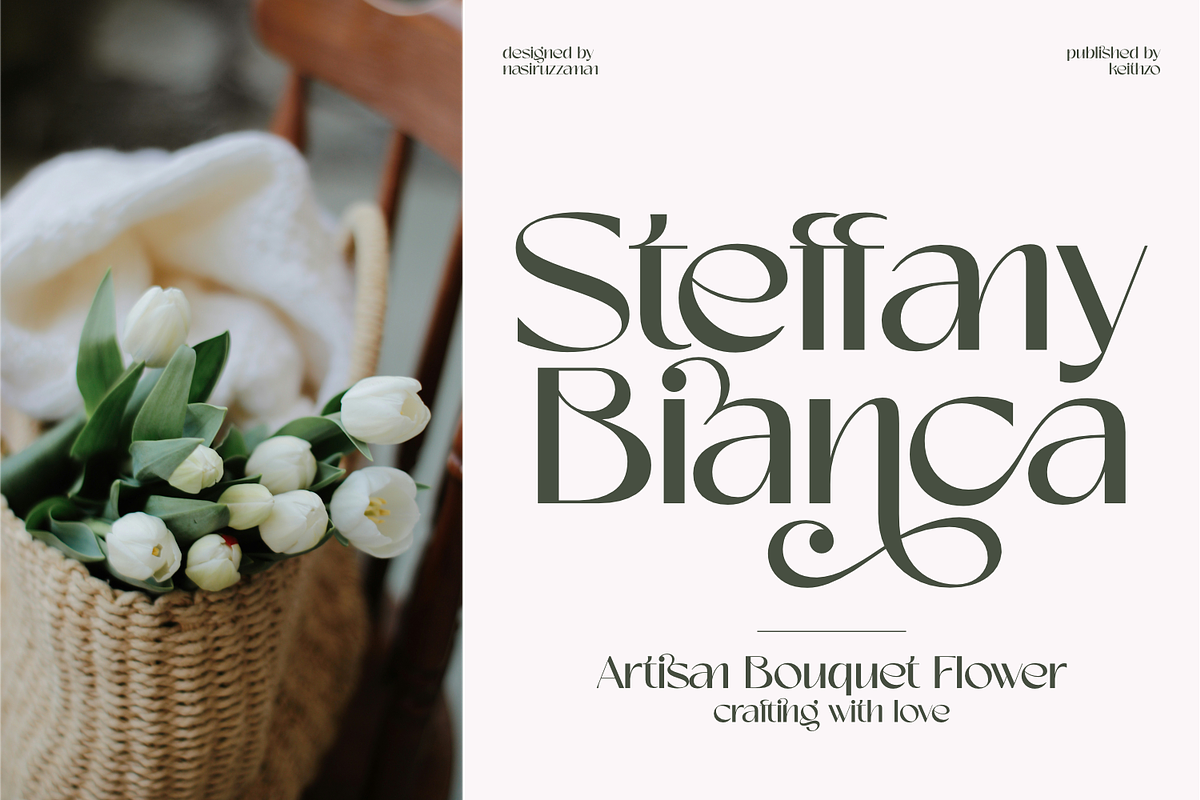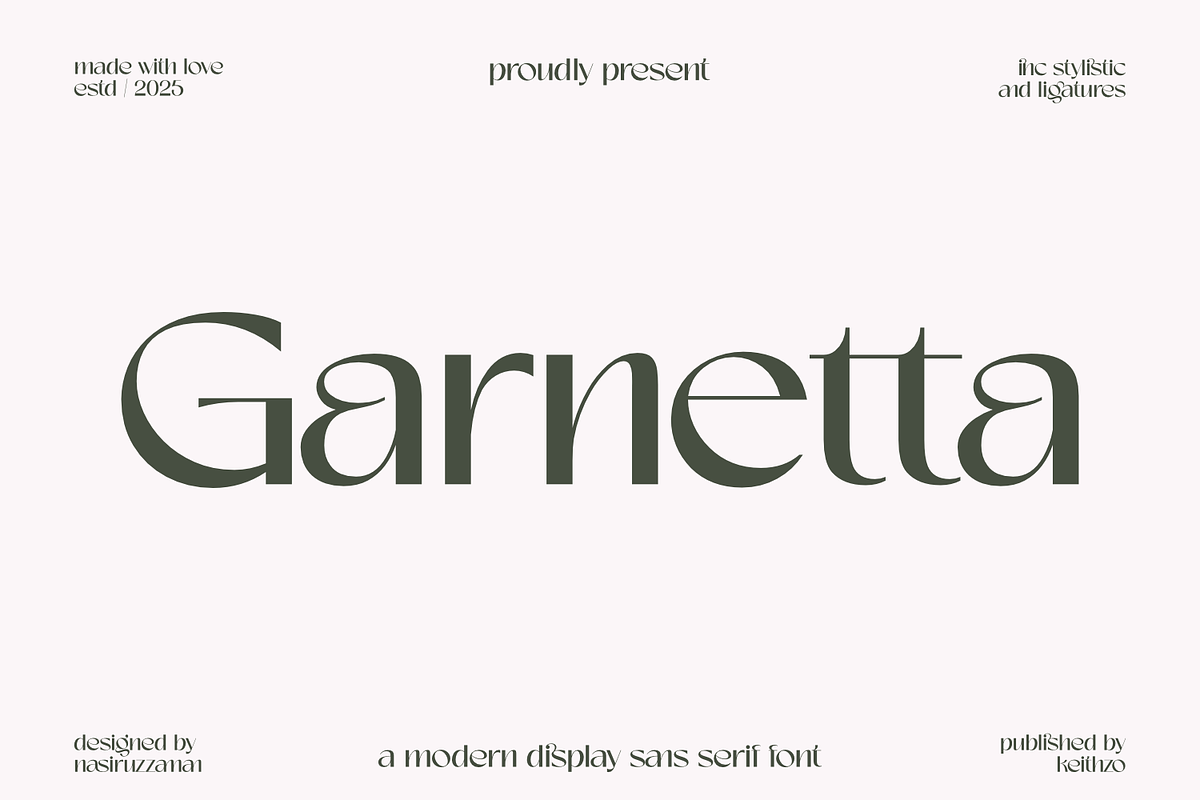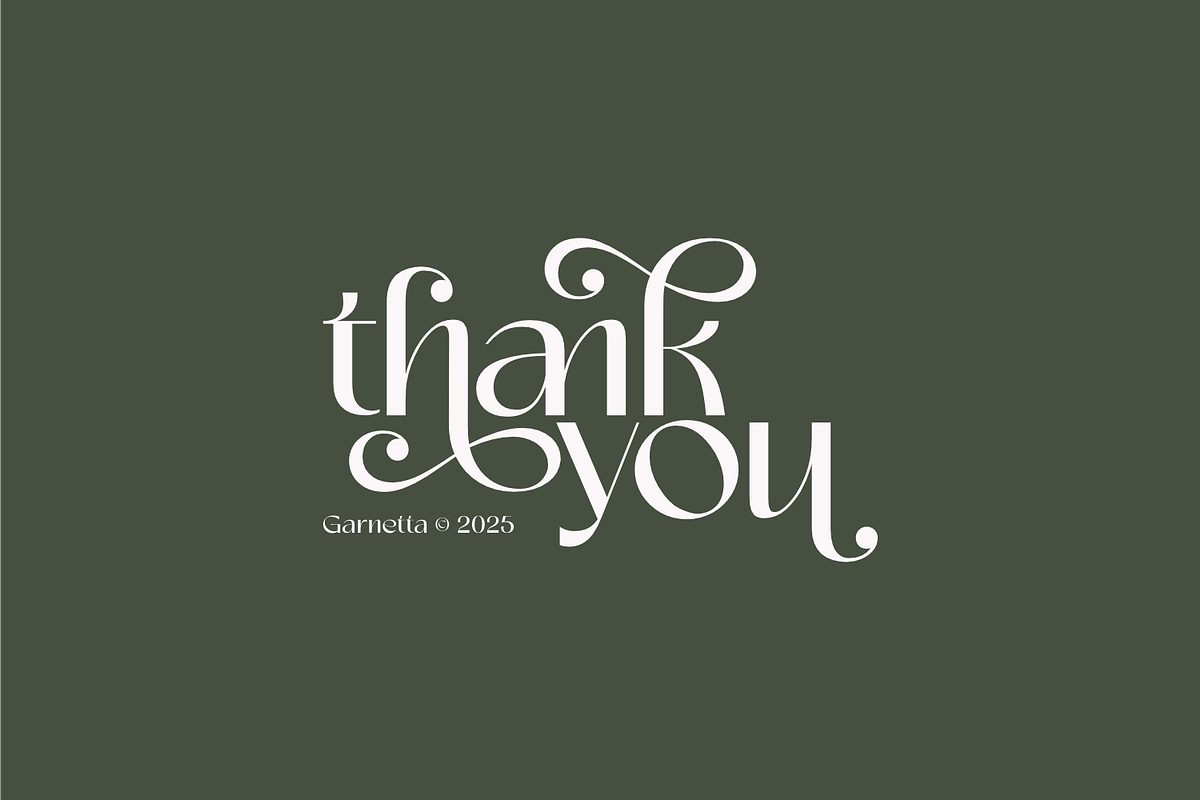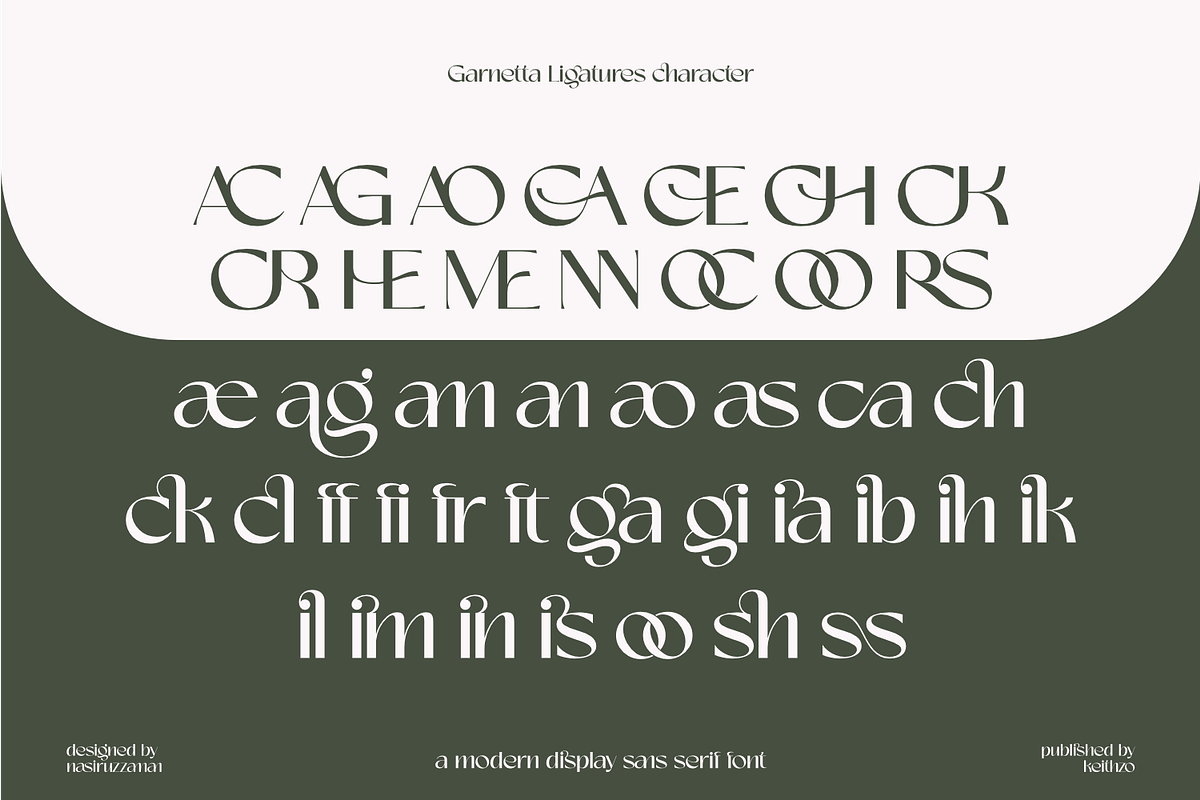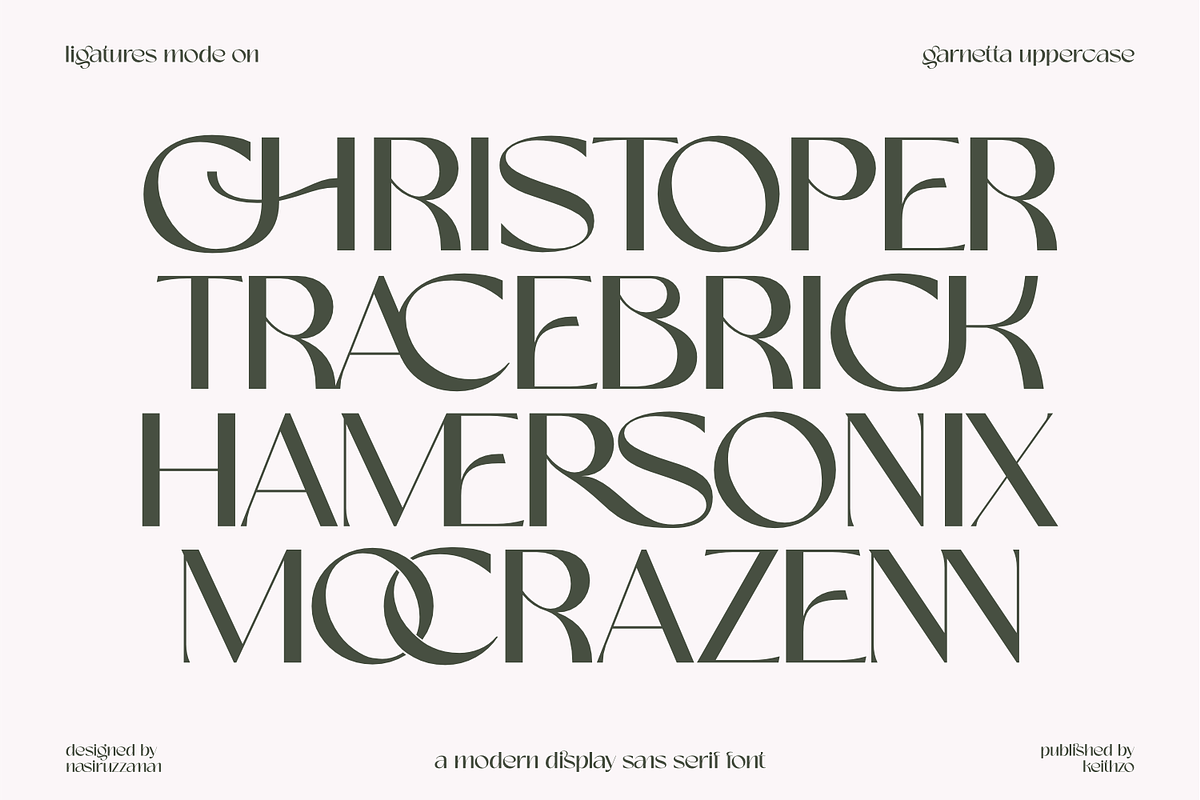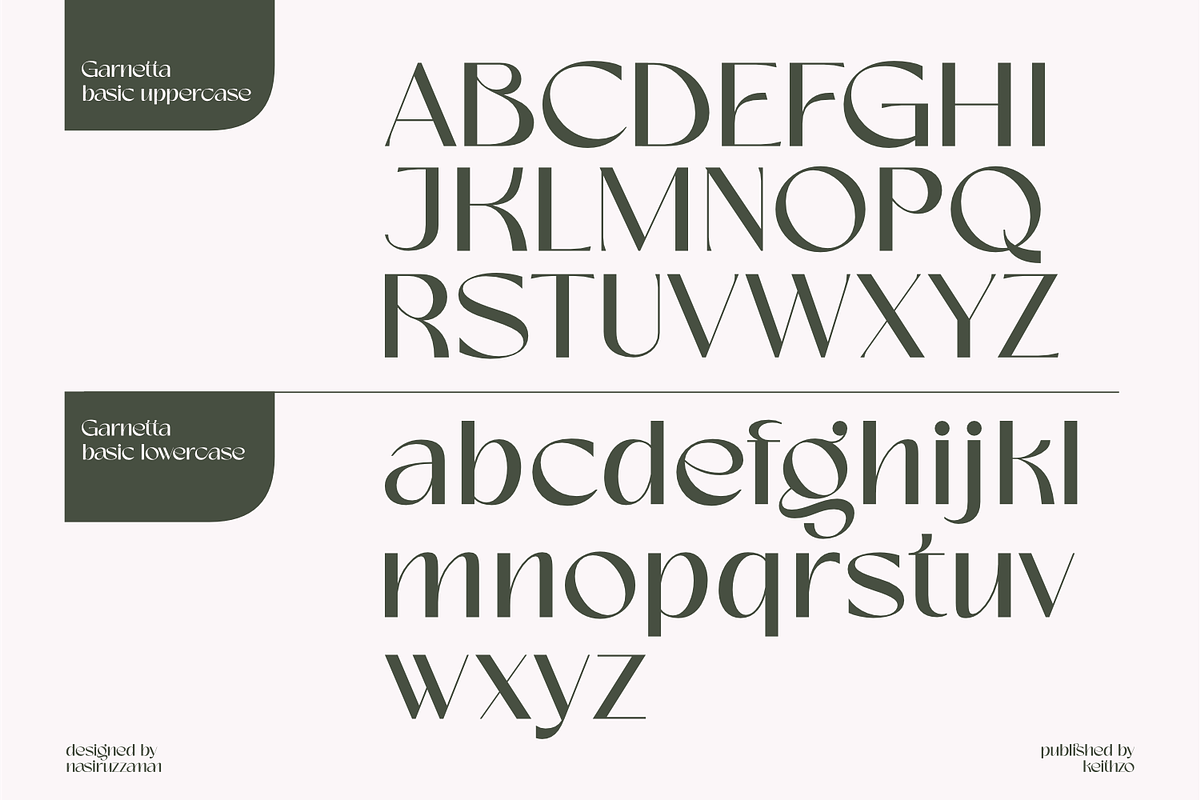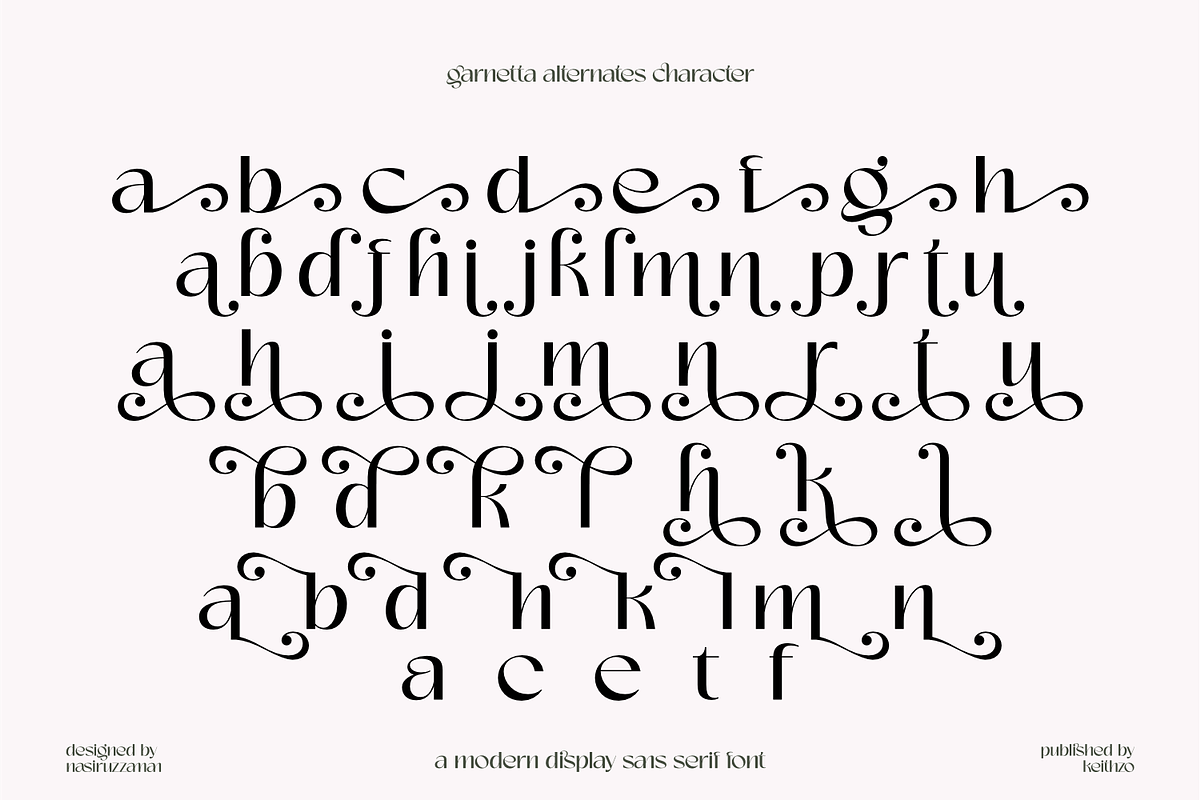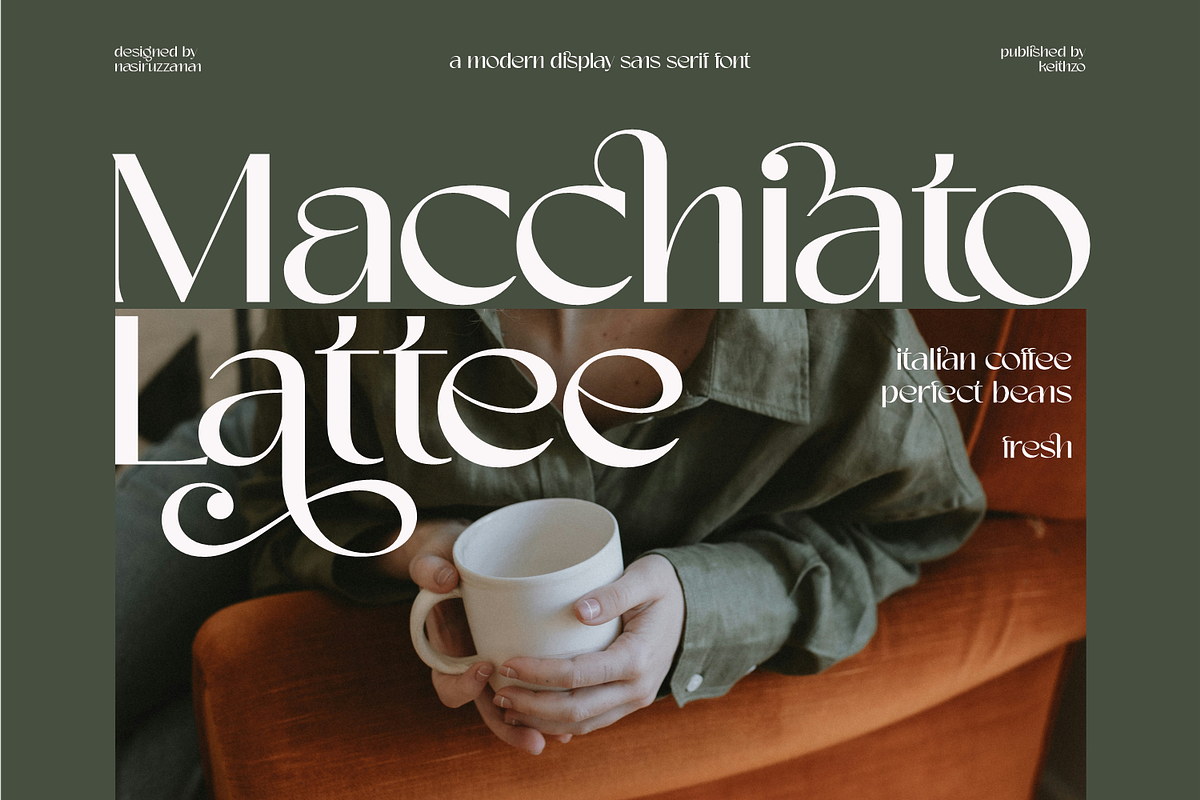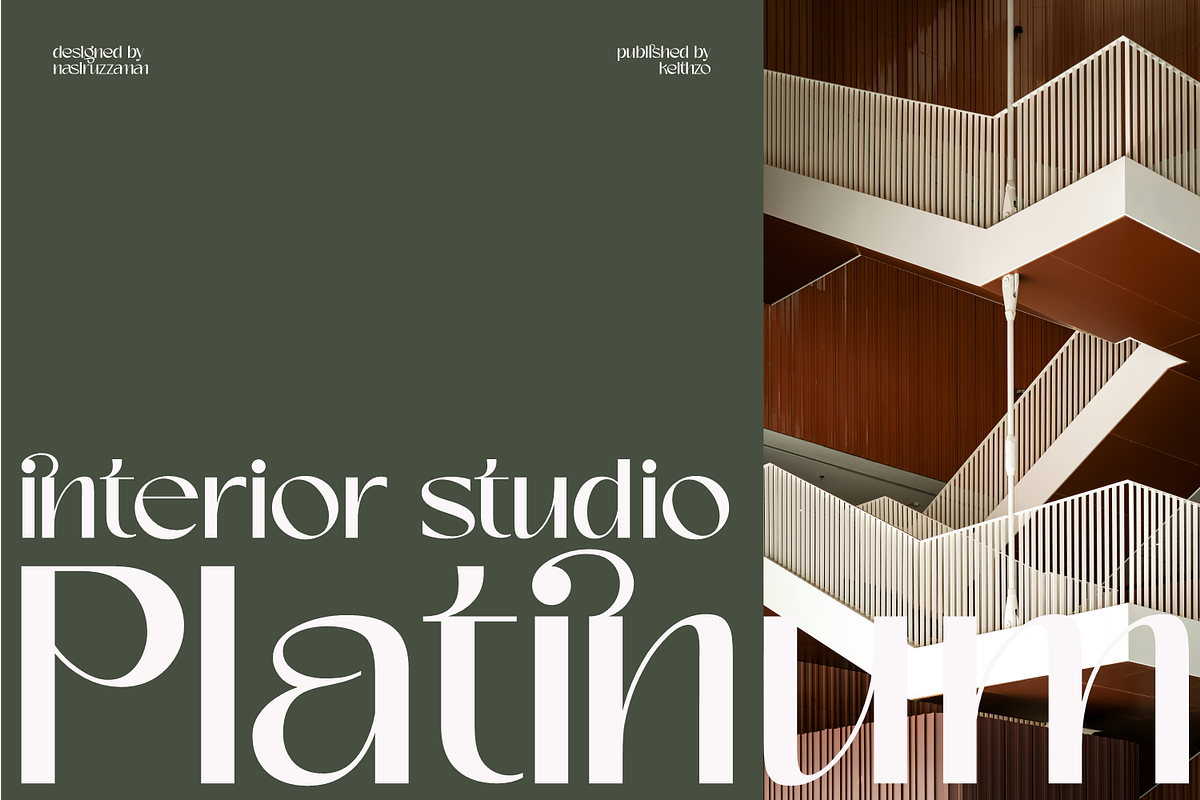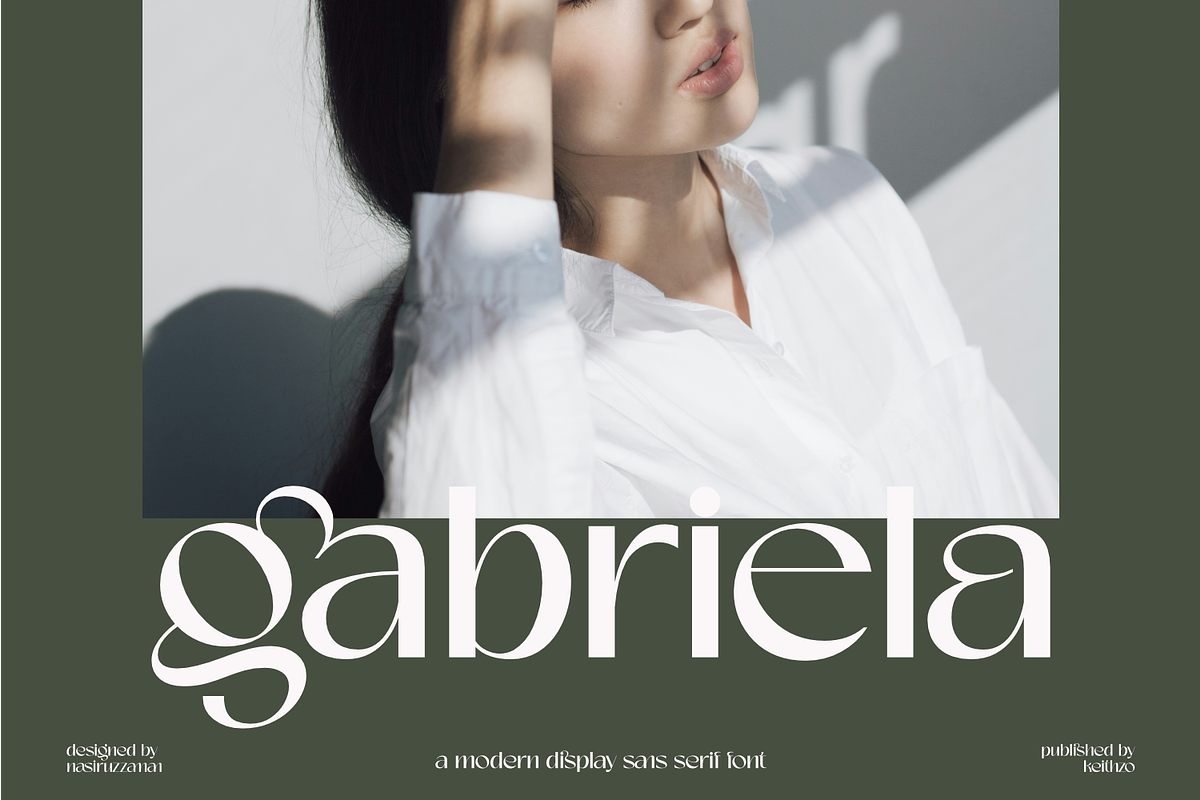
Garnetta - Stylish Sans Serif
Garnetta is a carefully crafted modern display sans serif font, offering an aesthetic that is both luxurious and contemporary. Designed with precision, this typeface features an exceptional balance of strong, upright strokes and delicate, sweeping curves, giving it a distinguished and highly memorable appearance.
The font is built for impact and sophistication. Its standout quality lies in its comprehensive set of stylistic alternates and ligatures—from dramatic swash characters to seamlessly connected letter pairs—that transform ordinary text into artful typographic compositions.
Ideal For Brand Identity & Logos, Editorial Design Magazines or Books, Product Packaging & Labels, Website Headlines, High-Fashion & Beauty Industry Branding. With Garnetta, you receive a tool to communicate exclusivity, quality, and modern refinement in every design.